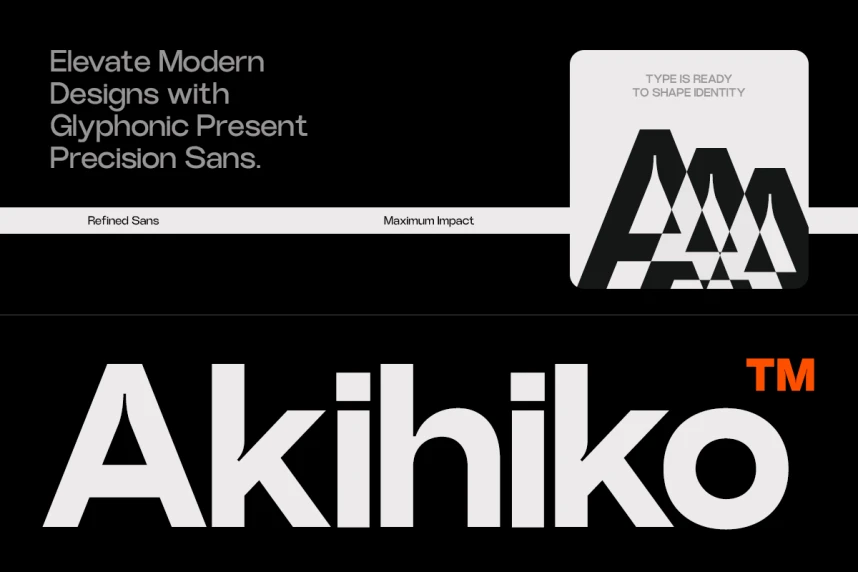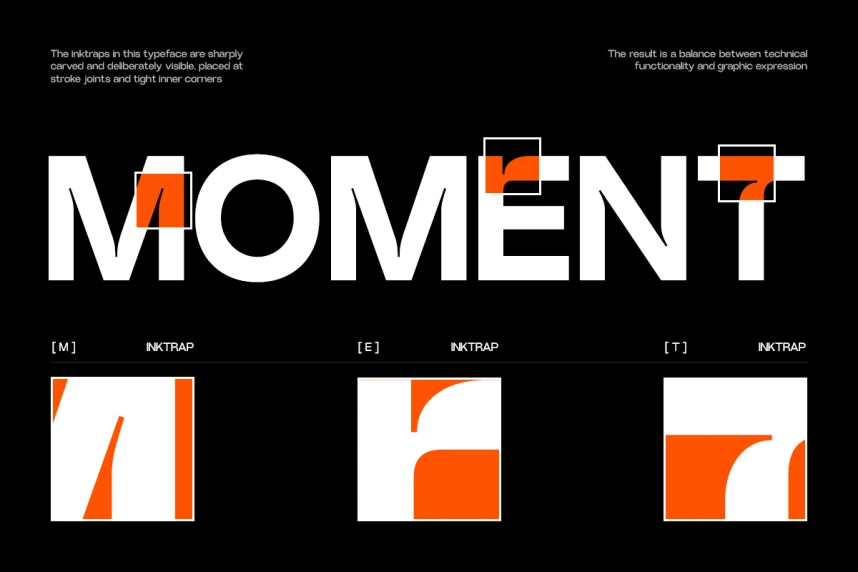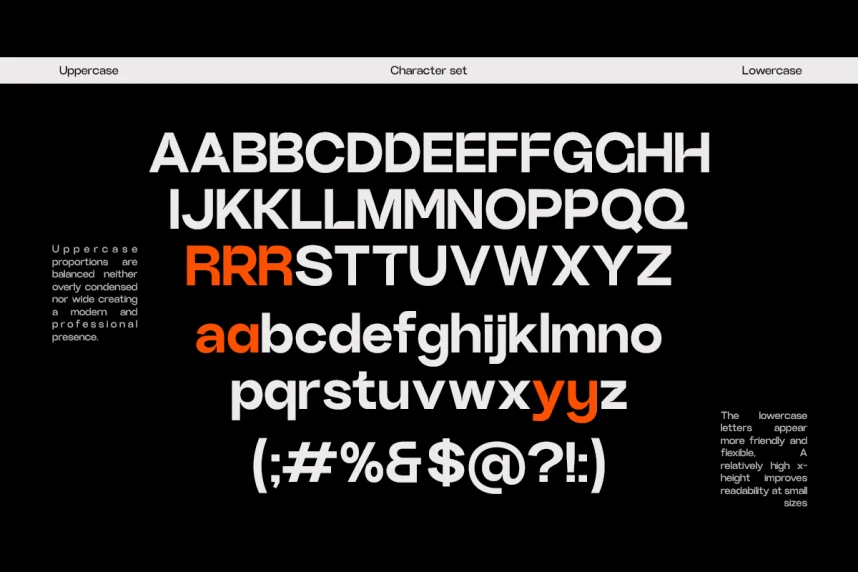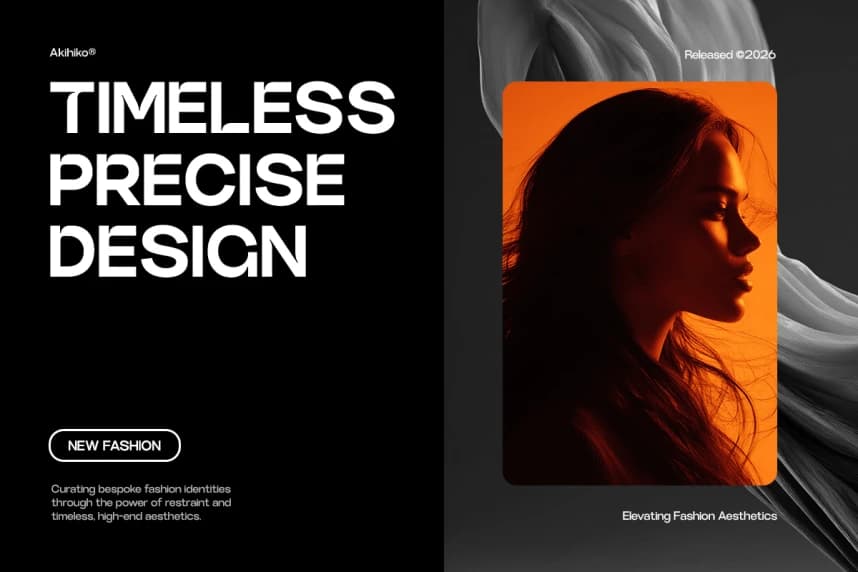
GC Akihiko Font
GC Akihiko Font – Modern Precision Sans is a contemporary sans serif typeface designed with refined geometry and precise modern structure. Built to deliver clarity and control, Akihiko presents a clean and confident typographic voice suited for high-end visual communication.
GC Akihiko